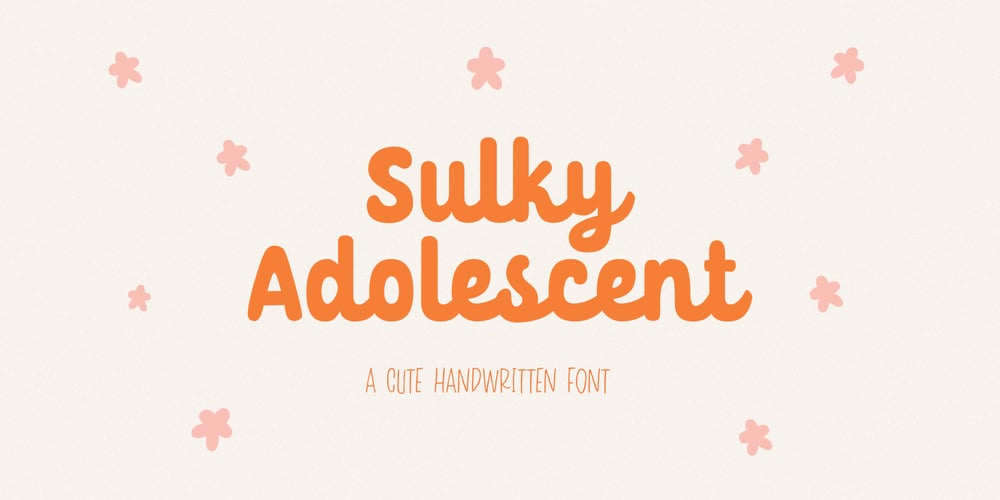
Sulky Adolescent
Sulky Adolescent font
Sulky Adolescent Font Family was designed by Ali Hamidi and published by Ali Hamidi. Sulky Adolescent contains 1 styles and family package options. Sulky Adolescent is a cute handwritten font that has a rather neat and simple vibe. It will add an incredibly joyful touch to your designs. Add this beautiful typeface to each of your creative ideas and notice how it makes them stand out!